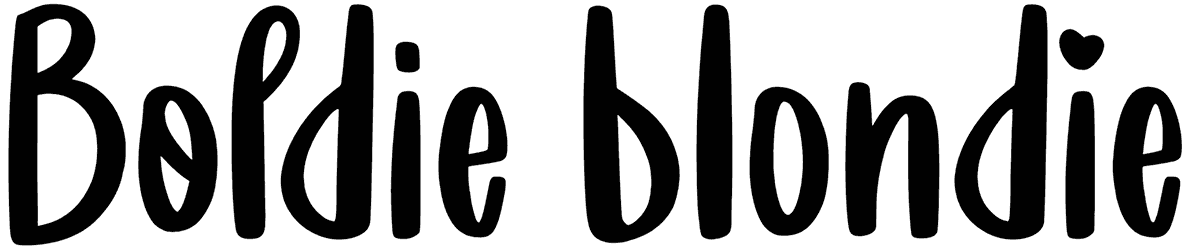
Boldie Blondie Font
Need to spread some friendly vibes with your words? This love font might be exactly what you need! Boldie Blondie font contains bold characters with a brush effect design that makes continuous letters with some extra heart elements. You can use this font to make a unique summer party flyer and write an interesting headline for any summer or beach party texts.